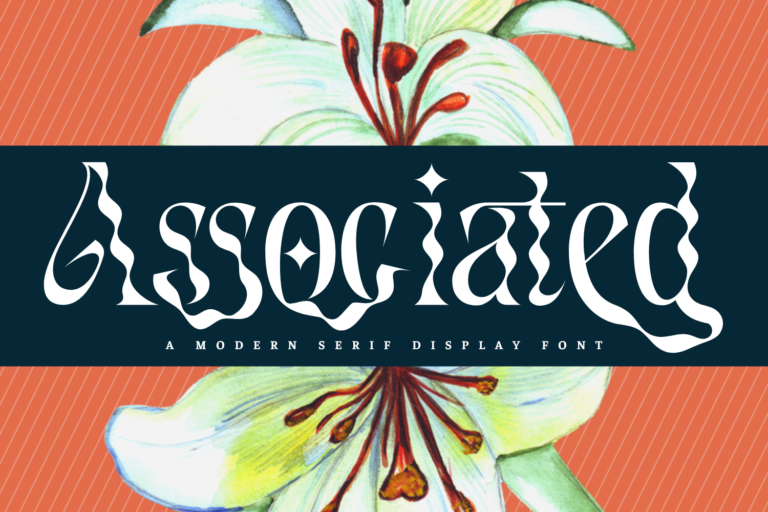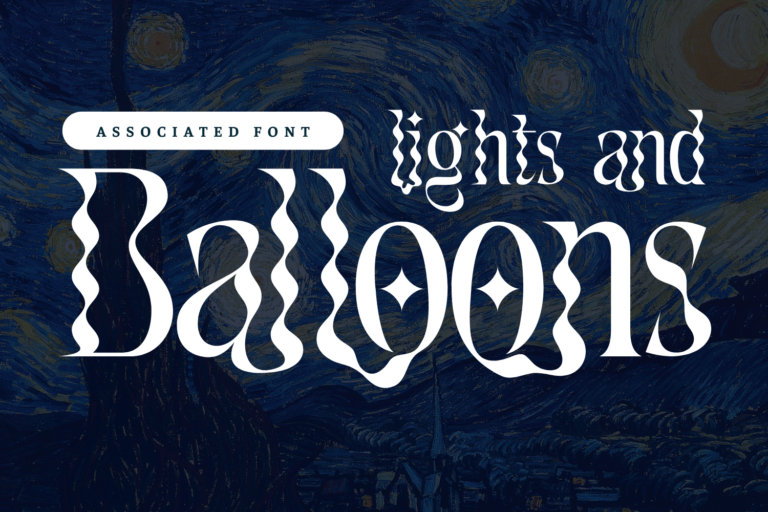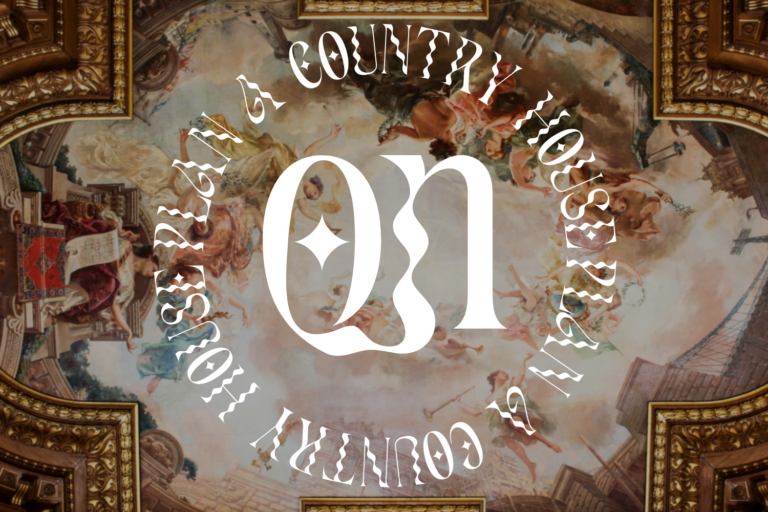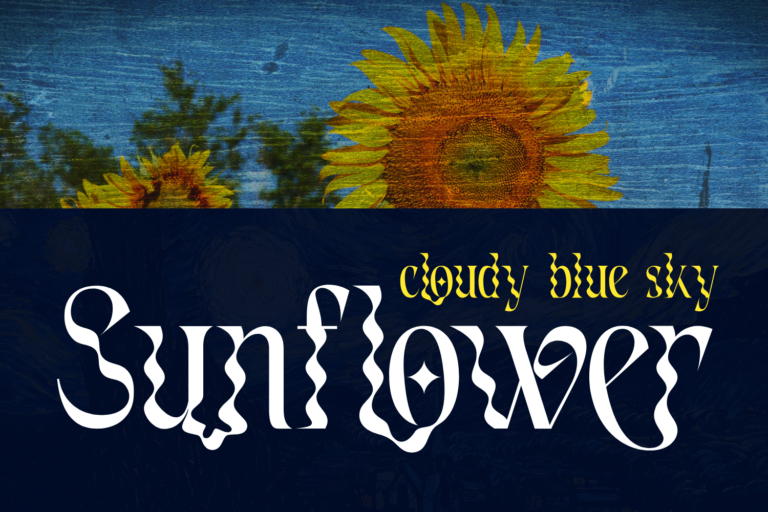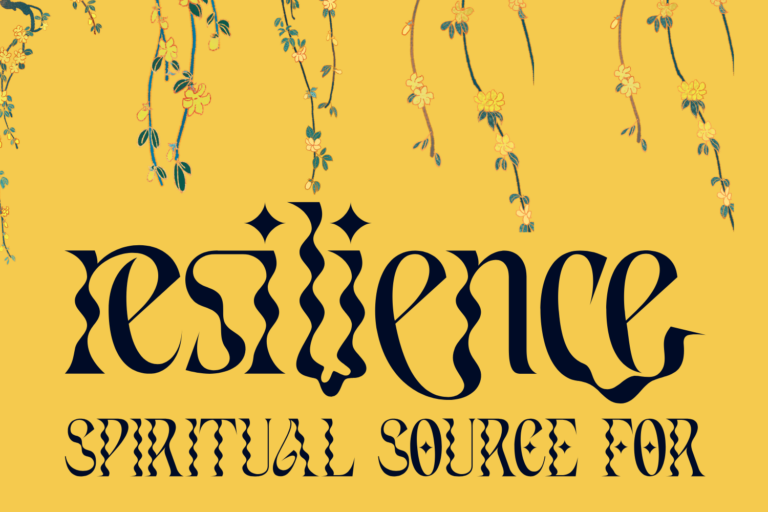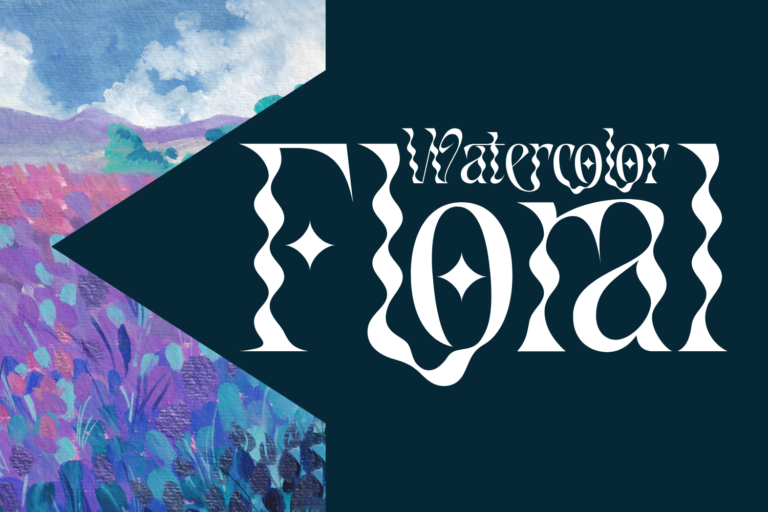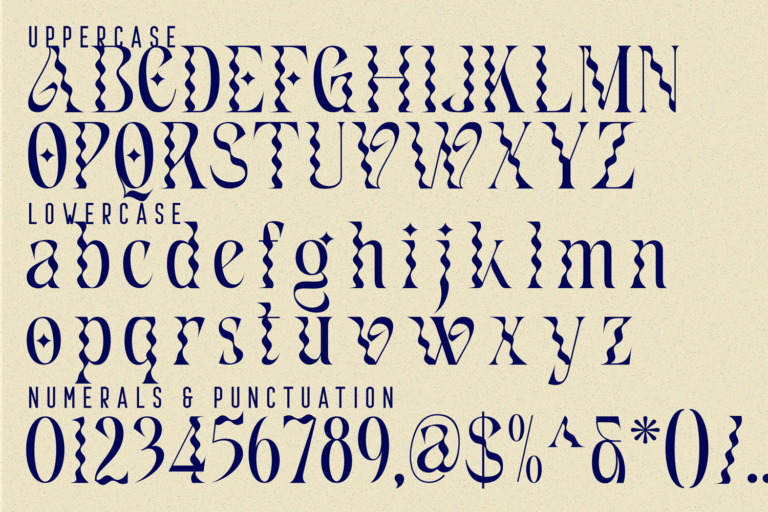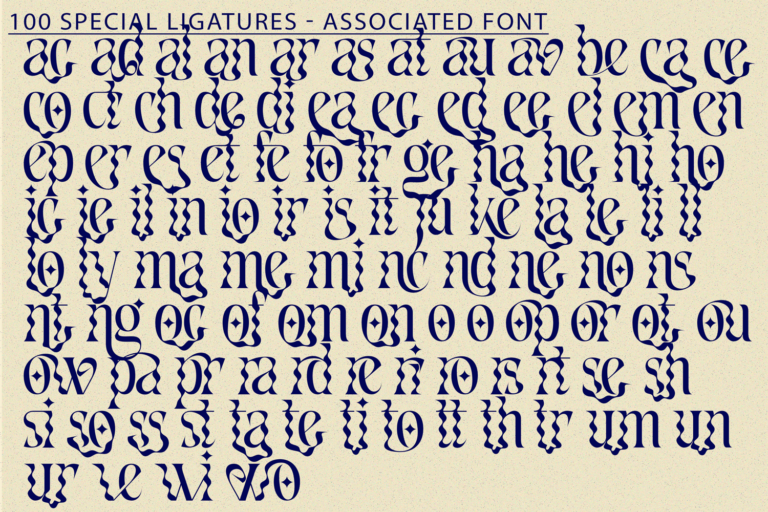
Associated Psychedelic Font – A Psychedelic Melting Display Typeface, a surreal and fluid display serif font inspired by psychedelic waves, ornamental lettering, and typographic illusions. With wavy contours, unexpected curves, and starry-eyed counters, this typeface melts convention into pure visual delight.
Each glyph in Associated feels alive—dancing, dripping, and expanding—making it perfect for music posters, streetwear, album art, editorial design, or branding that dares to dream.
Features:
• Uppercase & Lowercase Letters
• Around 100 Experimental Ligatures & Alternates
• Multilingual Accented Characters
ac ad al an ar as at au av be ca ce ch co ct de di ea ec ed ee el em en ep er es et fe fo fr ge ha he hi ho ie ic il in io ir is it ju ke la le li ll lo ly ma me mi nc nd ne ng no nt ns oc of om on oo op or ot ou ow pa pr ra rd re ri ro rs rt se sh si so ss st ta te th ti to tr tt um un ur ve wi wo
Associated Psychedelic Font